Recently I've resumed work on a font I'm currently developing, meant to be released as a completely free, open-source, OFL-licensed font designed specifically for use in academic and formal writing.
Besides being free and open source, it aims to have exceptional symbol coverage among many different languages (in particular supporting Latin-based scripts, Greek, and Cyrillic-based scripts), as well as coming with optical sizes, which can be thought of as extra families of the font designed specifically for certain sizes, like for footnotes or book covers.
Currently the regular style of the font looks like this (please ignore the currently defective spacing at certain parts):
I have a few plans to better support linguistics in relation to the design of the font:
• First, I plan to add extensive support for phonetic notation, including in particular the IPA, but also the extIPA and Americanist phonetic notation.
• I plan to follow the example of established phonetic fonts while designing everything, aiming for the best design possible, such as discussed here.
• I plan to support a really wide array of languages, from largely used languages such as Spanish, German, Vietnamese, Russian, Ukrainian, Greek, etc. all the way to low-resource African languages like Hausa, Igbo, and Yoruba, low-resource languages using the Cyrillic scripts such as Abkhaz and Mari, etc.
Part of the reason for this, at least when it comes to linguistics, is to facilitate the writing of articles in the phonetics/phonology/structure/etc. of those languages, allowing for a unified font to be used in writing, and dispensing with the need to use multiple fonts due to lack of glyph support.
However, not being a working linguist myself, it is evident to me that I significantly lack the actual experience to be able to effectively identify most of the issues that might come up in actual practice. To this end, I would like to ask:
Question. What are difficulties linguists have run into while working with commonly used fonts in their works?
What should I focus on to be able to best design a font that will amply satisfy the needs of working linguists, based on the issues they have encountered in their work and research experience?
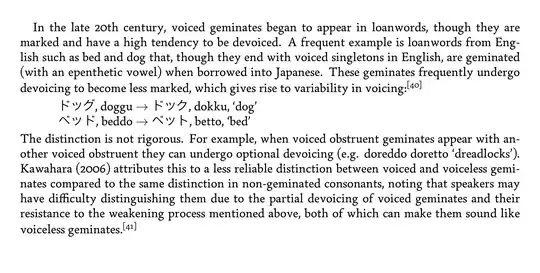
Not a full answer, but the Unicode Phonetic Extensions and Phonetic Extensions Supplement blocks are of potential interest in a number of linguistics contexts (especially when it is preferable to use a local phonetic alphabet instead of the IPA), and most fonts don’t have full coverage (if they have any coverage at all). – Austin Hemmelgarn Mar 01 '24 at 03:01
This sounds like an excellent project. I hope you succeed and look forward to seeing the end product! These are some of the main requirements for my particular field of linguistics, Indo-European studies. For more general/theoretical branches of linguistics, there will be other needs related to formulas, syntax trees, etc.
My current job consists in large part of typesetting and laying out academic books (not only Indo-Europeanist ones, but within the humanities), and there are a few very frequent and very frustrating shortcomings that I face over and over again.
Aside from a solid support of IPA, which it seems you’ve already pretty much got covered, much of what I typeset requires the font to support:
• characters used to transcribe Indo-Europeanist things (and various other commonly found transliterations), such as velars with inverted breves ⟨k̑ g̑⟩, vowels with inverted underbreves ⟨i̯ u̯⟩, vowels with macron + breve ⟨ā̆ ē̆ ō̆ ū̆ ȳ̆…⟩ macron + accent ⟨ā́ ḗ ī́ ṓ ū́…⟩
** [Notice how, at least on macOS, the fallback font in the browser paints the macron and acute over the e differently to the others since ḗ is the only one that exists as a precomposed character]
Taking care of details like this will surely be appreciated.